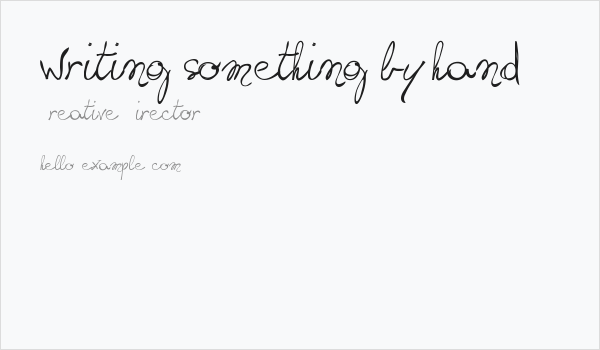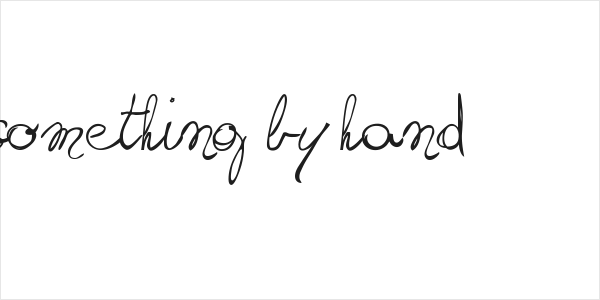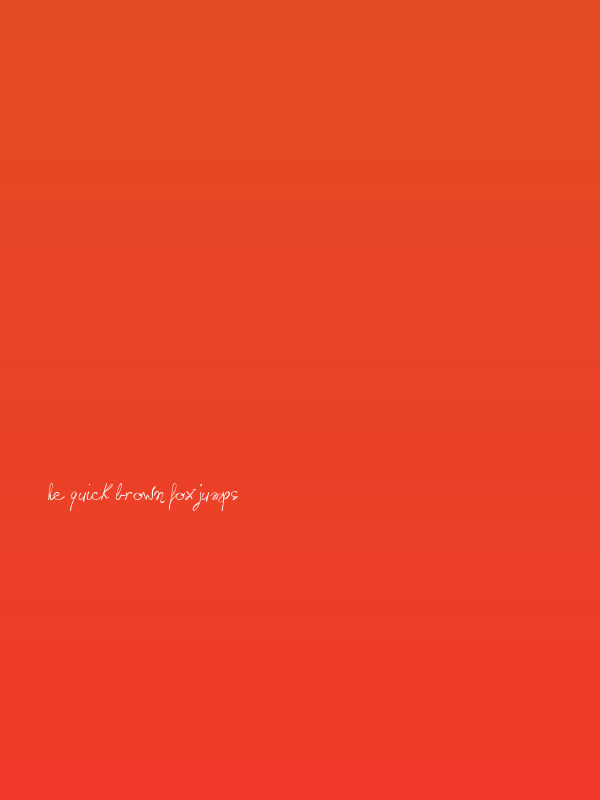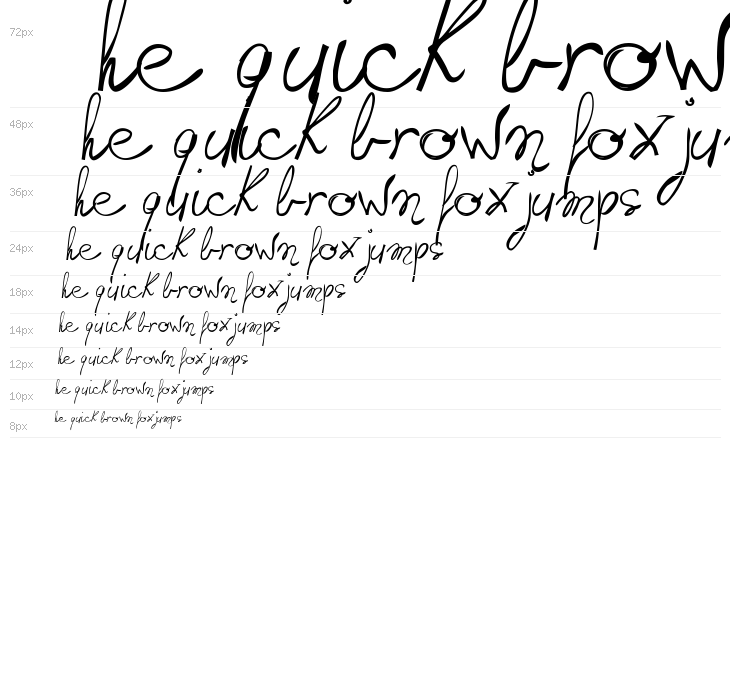
writing something by hand_DEMO-version Font
writing something by hand_DEMO-version Description
This font embodies a fluid and expressive handwritten style, characterized by its flowing, cursive letterforms. Each character is uniquely crafted, with varying stroke thickness that adds a dynamic and personal touch. The letters are interconnected, creating a seamless and continuous script that mimics natural handwriting. The overall appearance is elegant and artistic, making it ideal for creative projects that require a personal and informal touch. The font's organic curves and loops give it a lively and spontaneous feel, perfect for conveying warmth and authenticity.
| Proposed Projects | Ideal for wedding invitations, personal letters, greeting cards, and artistic branding. |